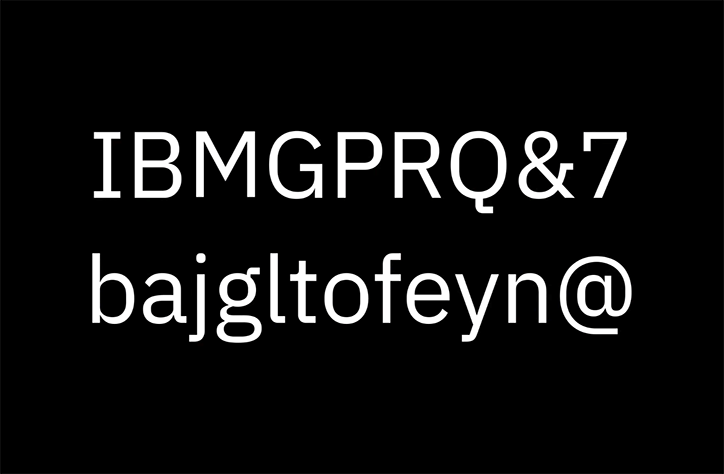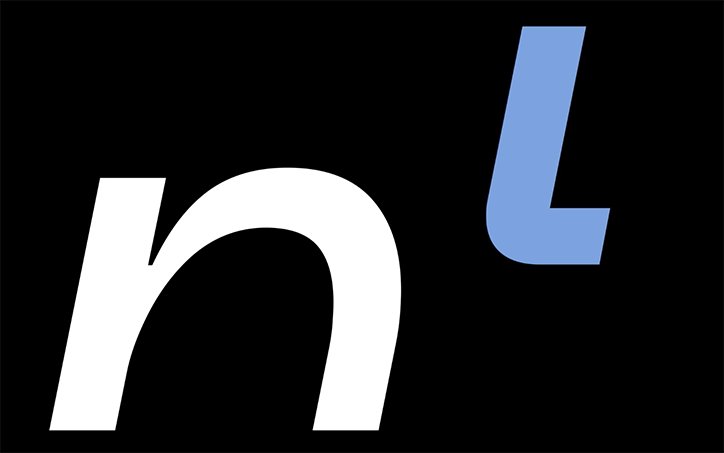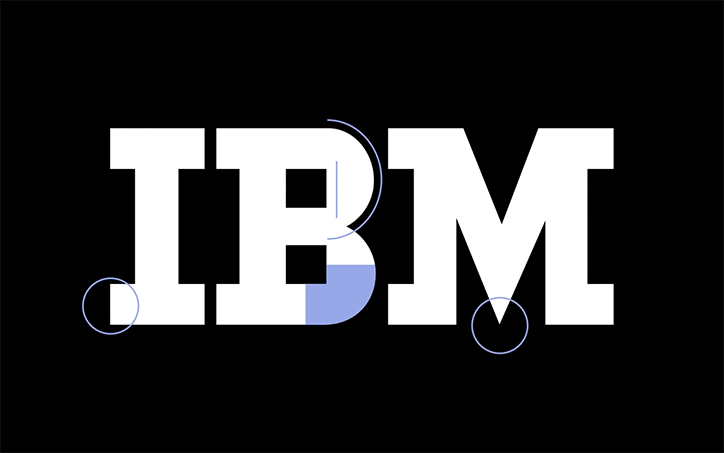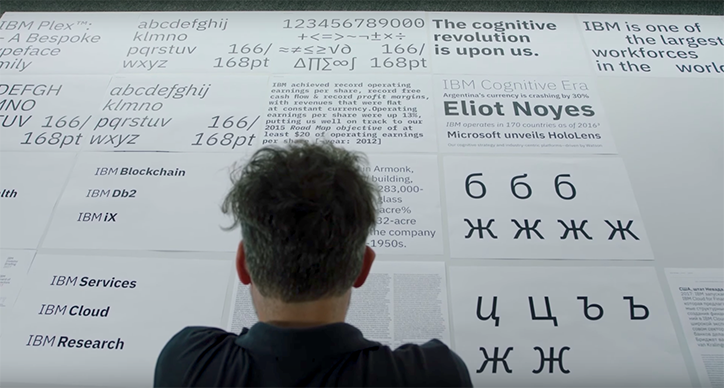
IBM’s bespoke corporate typeface aims to convey ideas of “man and machine”
IBM has launched its own bespoke, corporate typeface, IBM Plex, which aims to echo Paul Rand’s iconic eight-bar logo in being inspired by the convergence of “man and machine”. Led by executive creative director of brand experience and design, Mike Abbink, an in-house team developed the typeface to replace Helvetica in all the company’s visual communication.
The decision to create the “new Helvetica”, Mike says, grew from wanting to better reflect the company’s personality – though it has the added benefit of saving the company $1million a year in licensing fees to Monotype for Neue Helvetica.
“When I came to IBM it was a big discussion,” Mike says in a film released by the company. “Why does IBM not have a bespoke typeface, why are we still clinging on to Helvetica? The way we speak to people – is that still the right way to express ourselves?
“We should really design a typeface that reflects some of our belief system, and make it relevant to people now. Helvetica is a child of a particular set of modernist thinking, that’s gone today. So what’s next? How do you go about creating a typeface that’s innately IBM.”
IBM Plex, Mike says, better reflects the brand’s history, which he believes is vital to keep alive. “All the history and foundation behind [the company’s design ethos] gets watered down if you’re not rooted in it.”
The design team looked back through the company’s history, where a common theme of “man and machine” was always part of its design thinking. This is evident in Paul Rand’s IBM logo, Mike says, where the contrast of engineered and humanist design can be seen in the three letters – for example in the rounded outer edges and square inner of the ‘B’.
In the typeface, this concept manifested in a balance of “natural, man-made typographical choices with things that felt machined, engineered and rational” he says.
The typeface is free, open-source and currently in beta for development. It will be available in 110 languages, serif and sans serif versions and eight weights.